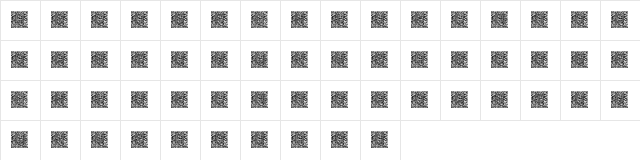
QRcodeX Regular
| Foundry | Manuel Viergutz |
| Designer | Manuel Viergutz |
Design Context for QRcodeX Typeface
QRcodeX brings the precise, column-aligned rhythm of monospaced typography to designs that value technical clarity and systematic order.
Well-suited to data-driven dashboards, coding tutorials, and any design that wants to reference the world of programming.